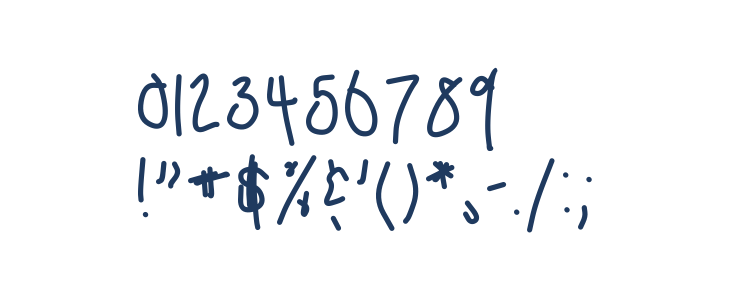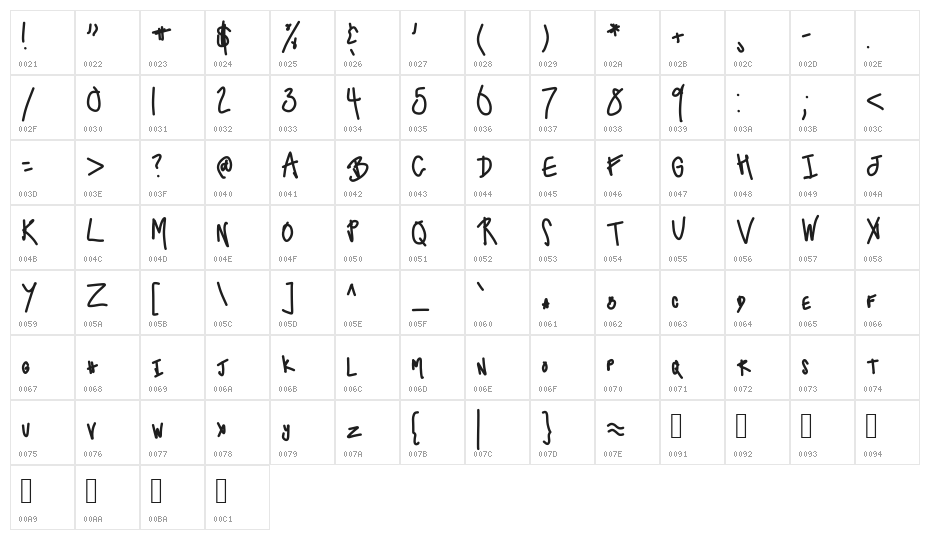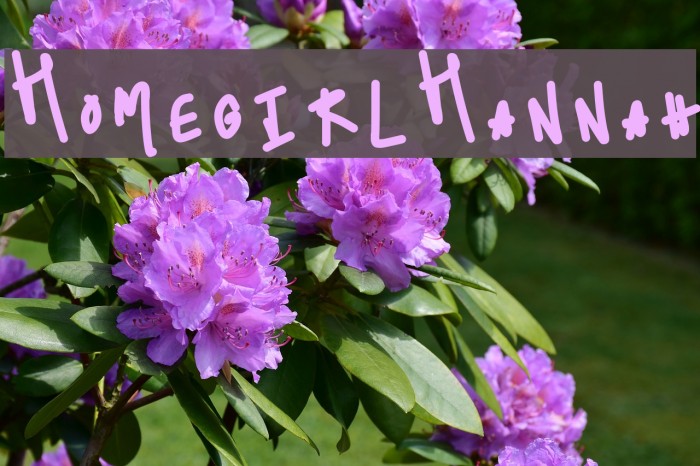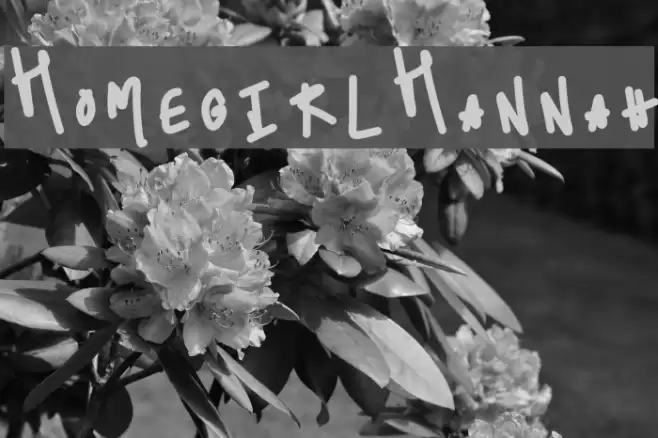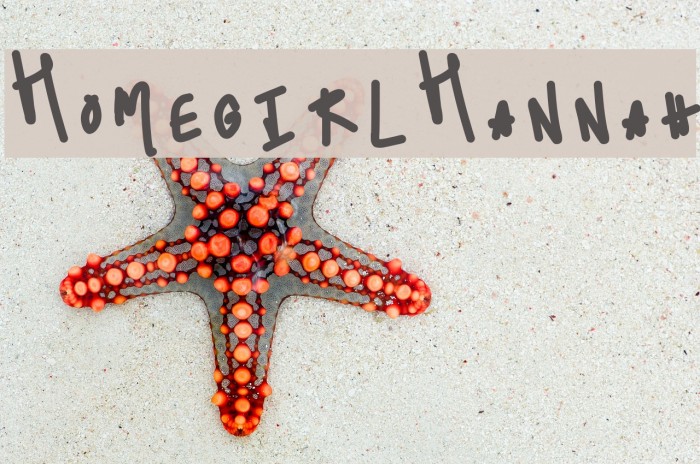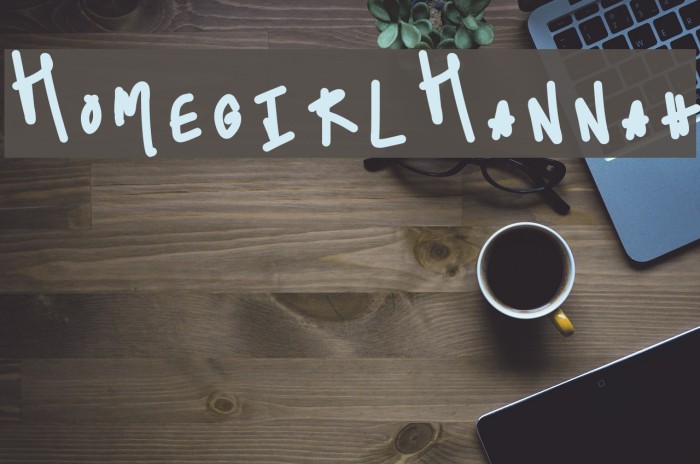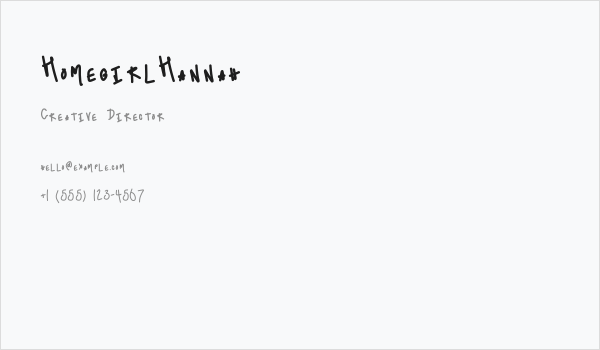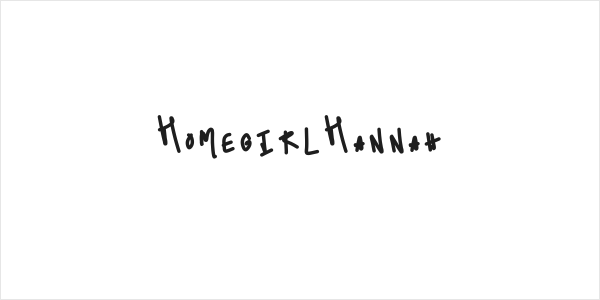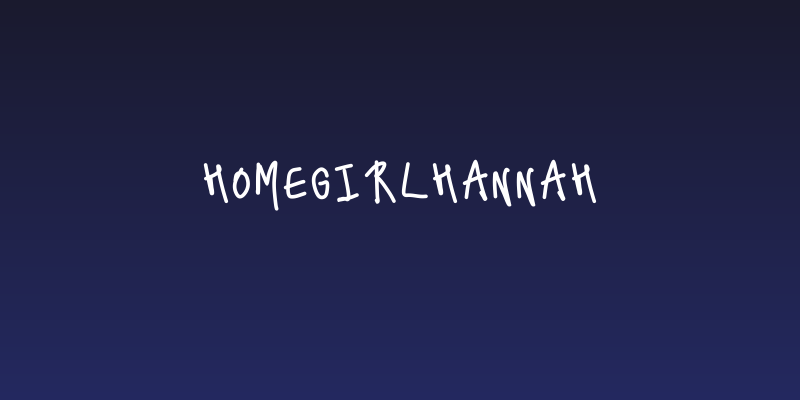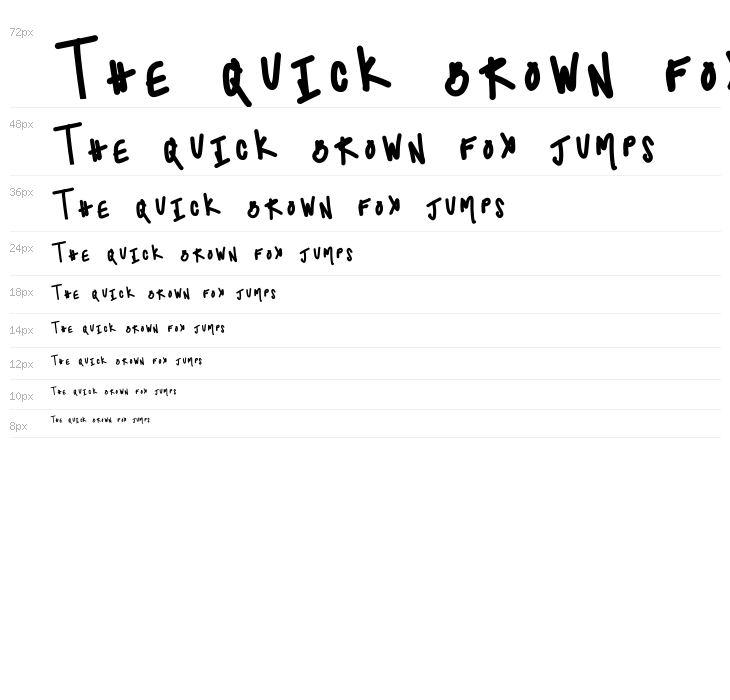
HomegirlHannah Font
HomegirlHannah Description
This font exhibits a playful and casual handwritten style, characterized by its irregular strokes and spontaneous appearance. The letters are slightly tilted, adding to the informal and dynamic feel. The uppercase and lowercase letters maintain a consistent flow, while the numbers and special characters complement the overall aesthetic. The strokes vary in thickness, giving it a lively and energetic vibe. This font is perfect for projects that require a personal touch or a creative flair, such as invitations, greeting cards, or artistic posters.
| Proposed Projects | Ideal for creative projects like invitations, greeting cards, and artistic posters. |